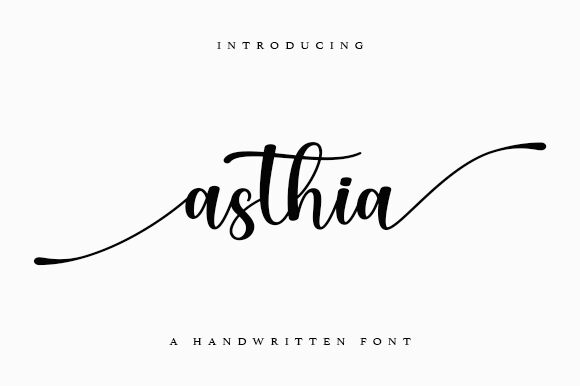
Asthia
Asthia, a charming handwritten font by Wahyu Studio, adds a touch of elegance to any project.
With its semi-light weight and semi-condensed width, this font is perfect for creating captivating wedding invitations that exude romance and sophistication. Its delicate strokes and graceful curves also make it an ideal choice for designing feminine branding materials like beauty product packaging or fashion magazine covers. Additionally, Asthia's organic feel can bring warmth to food blogs or recipe books, giving them a homemade touch that resonates with readers.